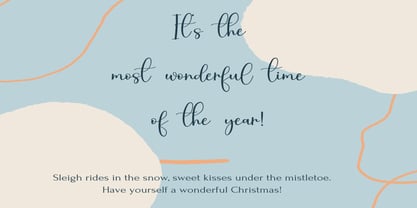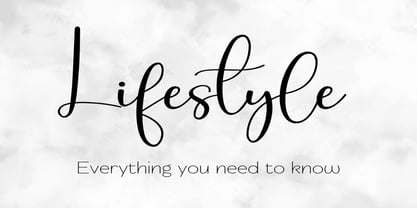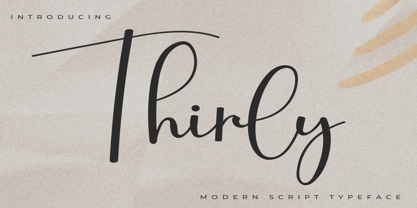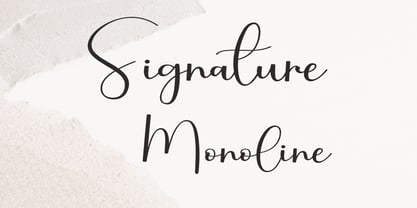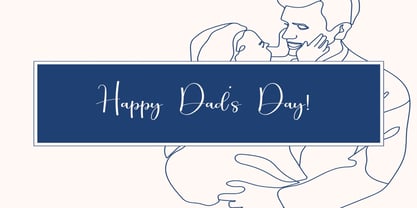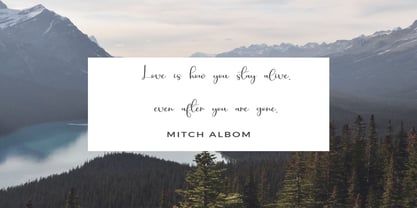
Thirly
Die Schriftfamilie Thirly wurde von Robert Evans entworfen und von Dream Font veröffentlicht. Thirly enthält 1 Stile.
Thirly is a simple and natural handwriting font.
It is great for branding, quotes, logos, t-shirt designs, tote bag designs, cards, banners, social media, and more.